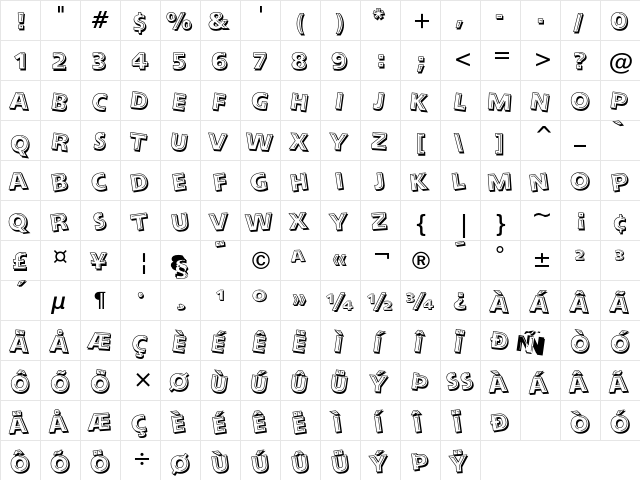
Alphabet Soup Tilt
Design Context for Alphabet Soup Typeface
Alphabet Soup is a composed and adaptable typeface that performs quietly and consistently across a wide range of design contexts.